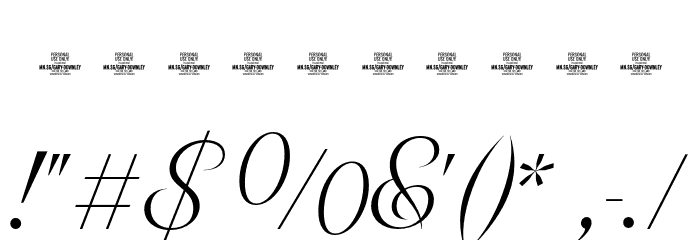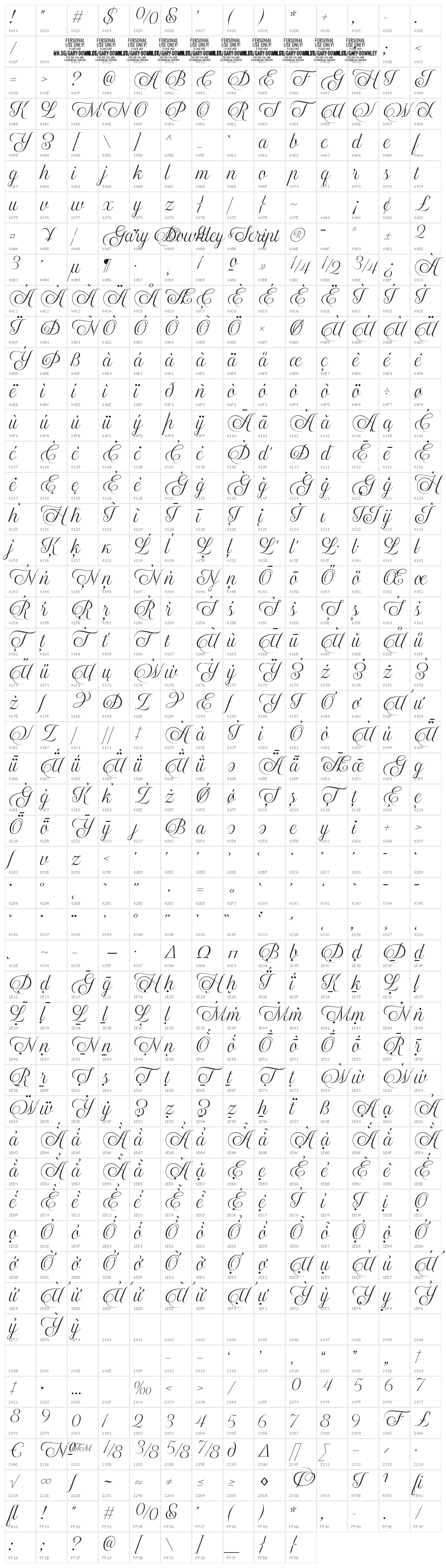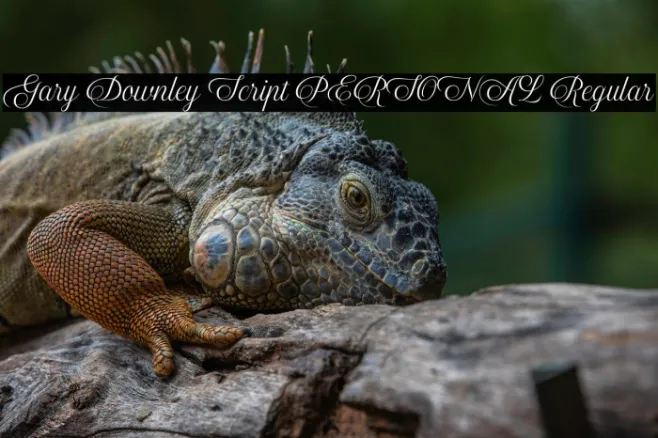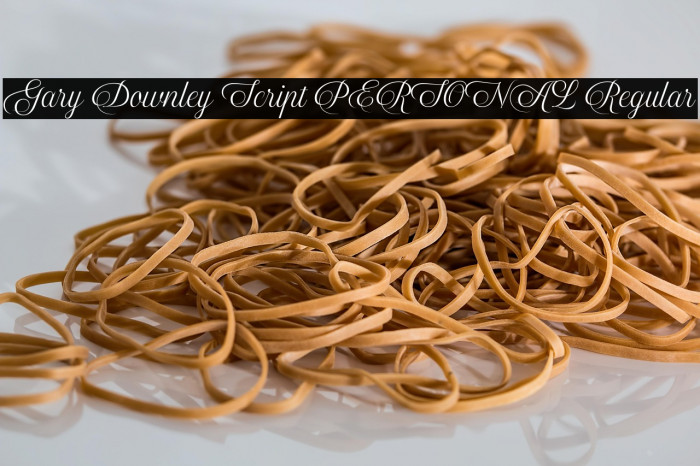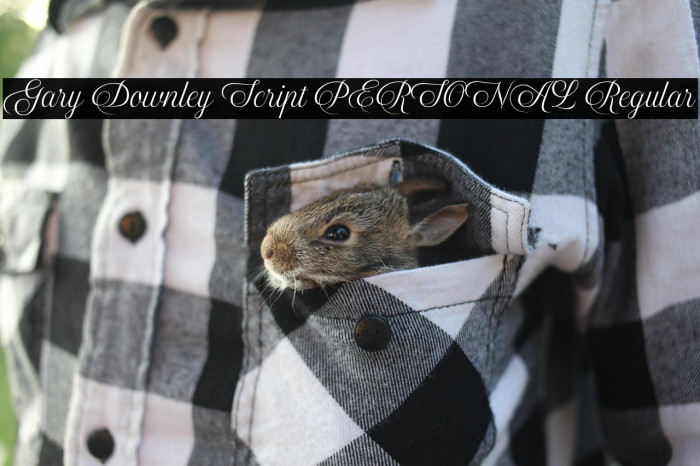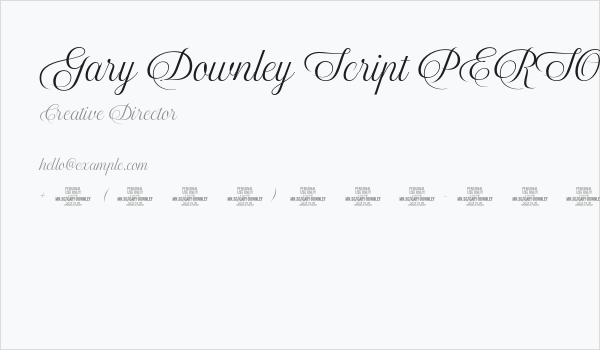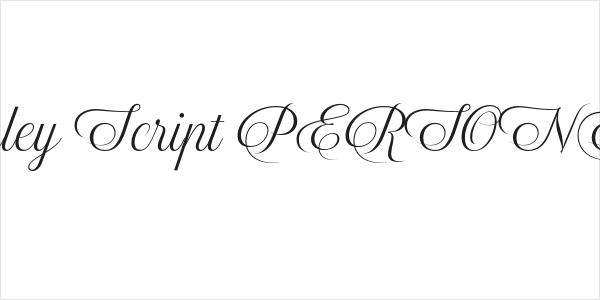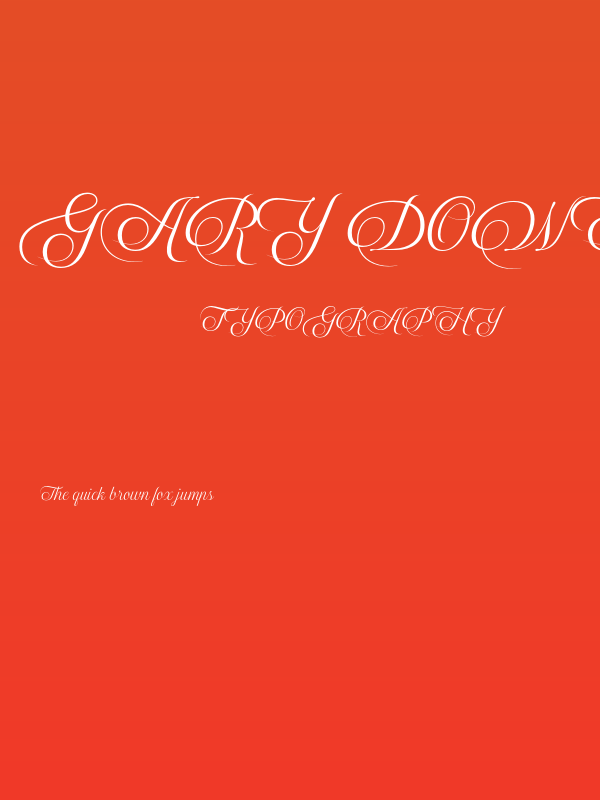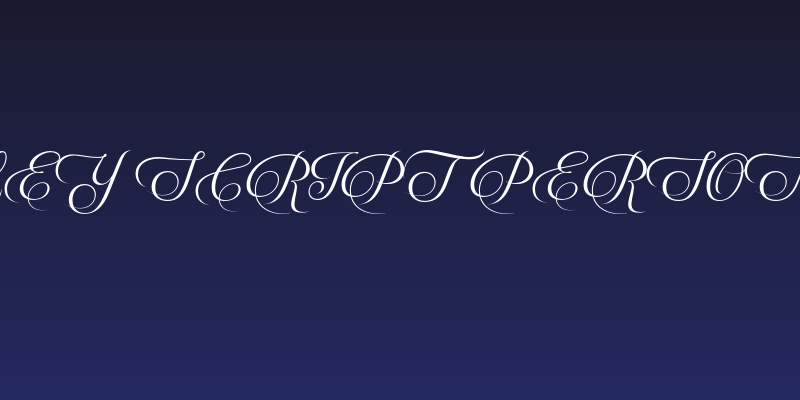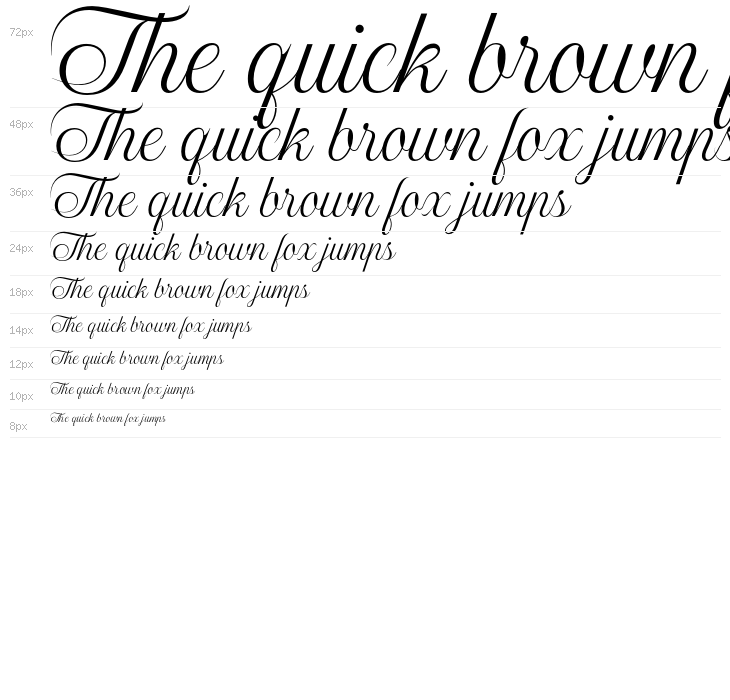
Gary Downley Script PERSONAL Regular Font
Gary Downley Script PERSONAL Regular Description
This elegant script font features graceful, flowing lines with a sophisticated flair. The uppercase letters are adorned with intricate swashes and loops, giving them a decorative and ornate appearance. The lowercase letters maintain a smooth and connected style, enhancing the script's fluidity. The font's delicate strokes and high contrast between thick and thin lines contribute to its refined and stylish look. It exudes a sense of elegance and formality, making it ideal for upscale designs.
| Overall Style | Elegant, Formal |
| Proposed Projects | Wedding invitations, luxury branding, elegant stationery, formal event programs, and high-end product packaging. |